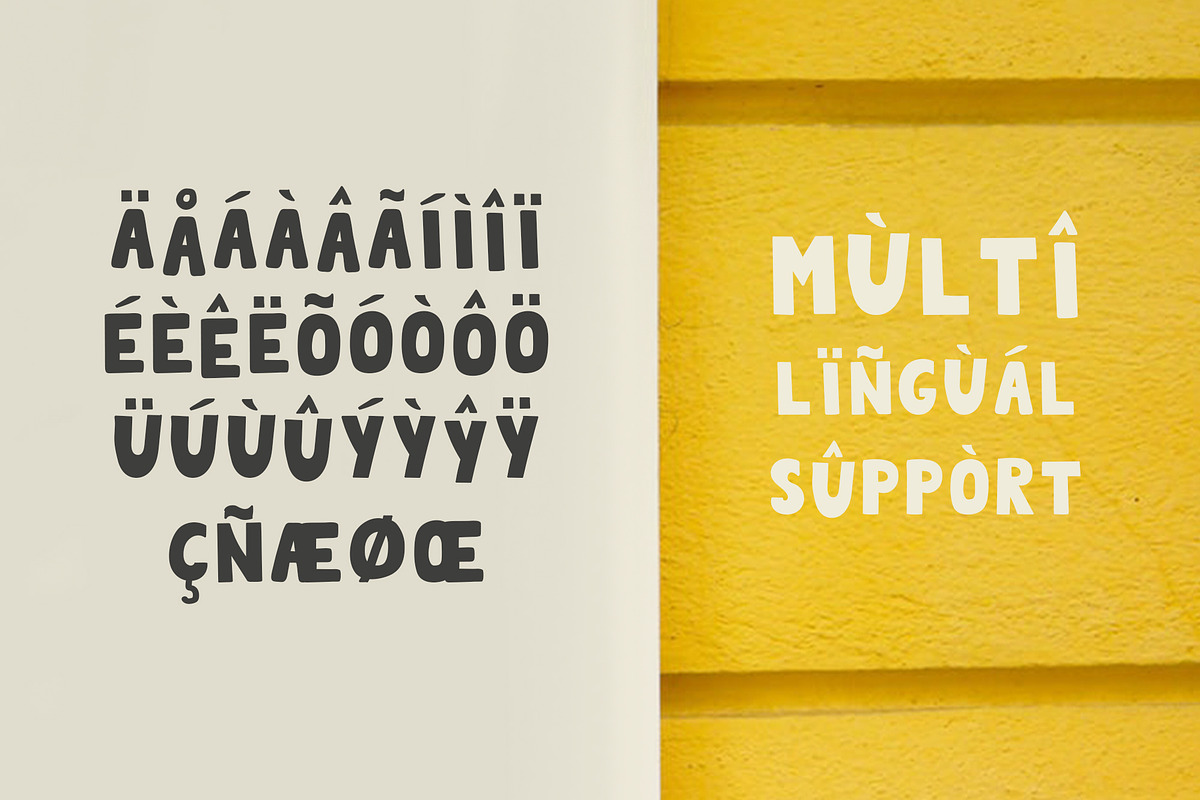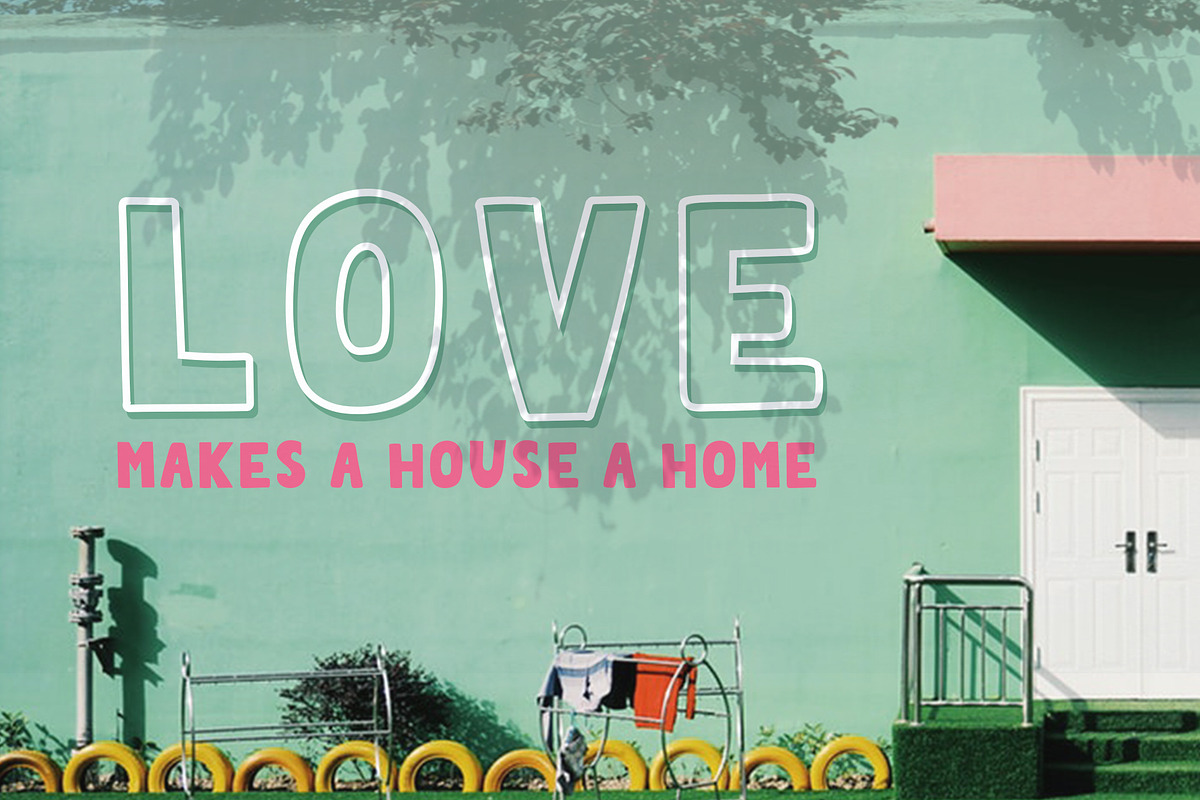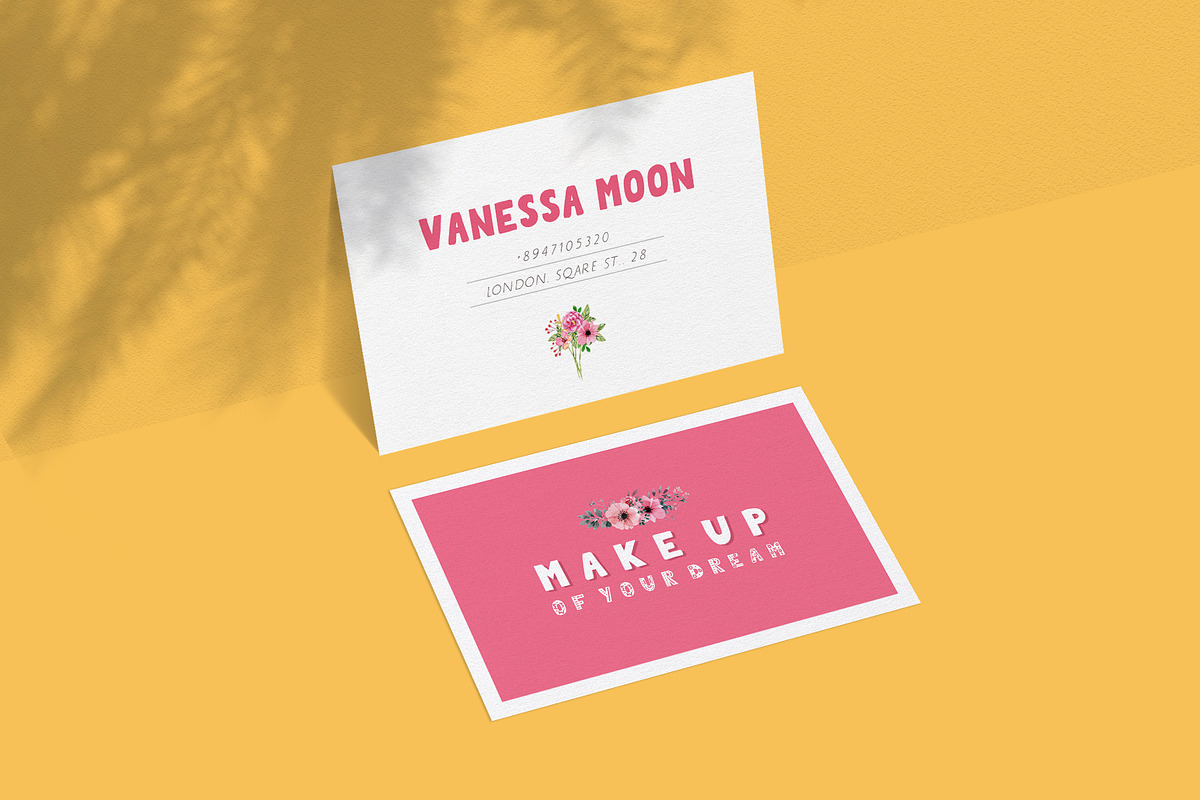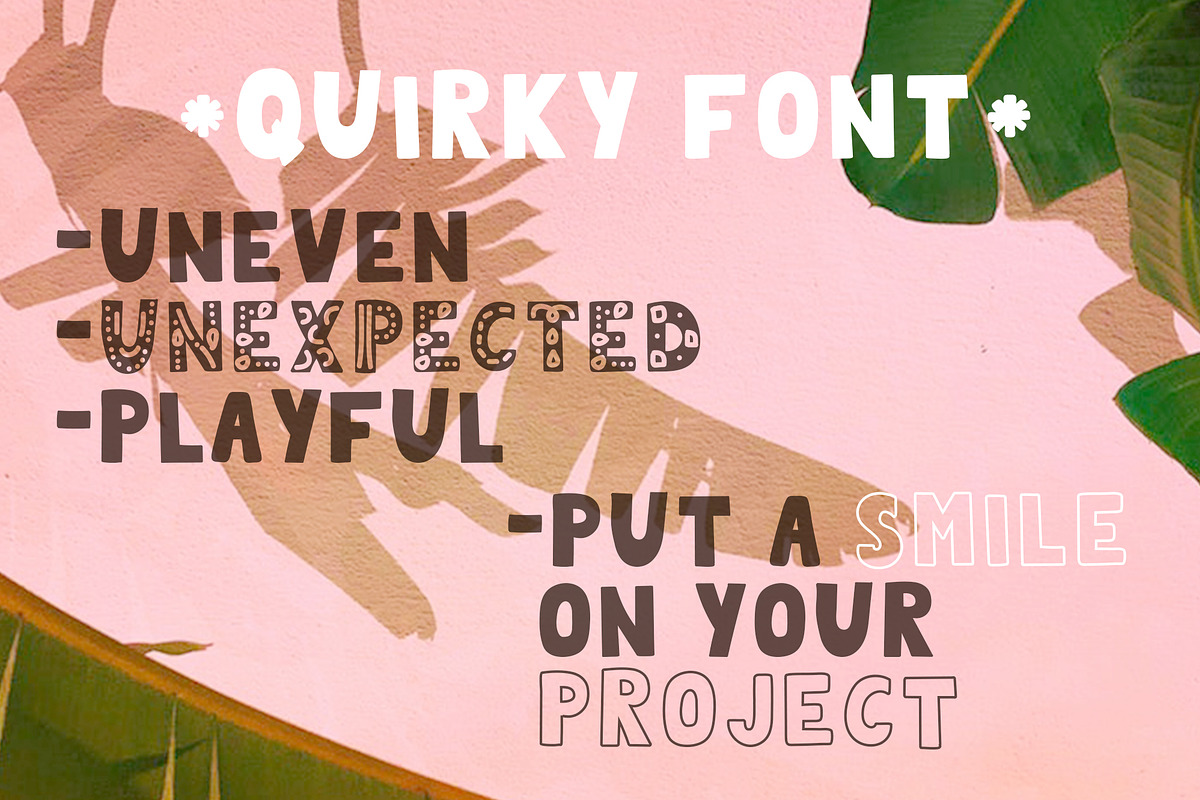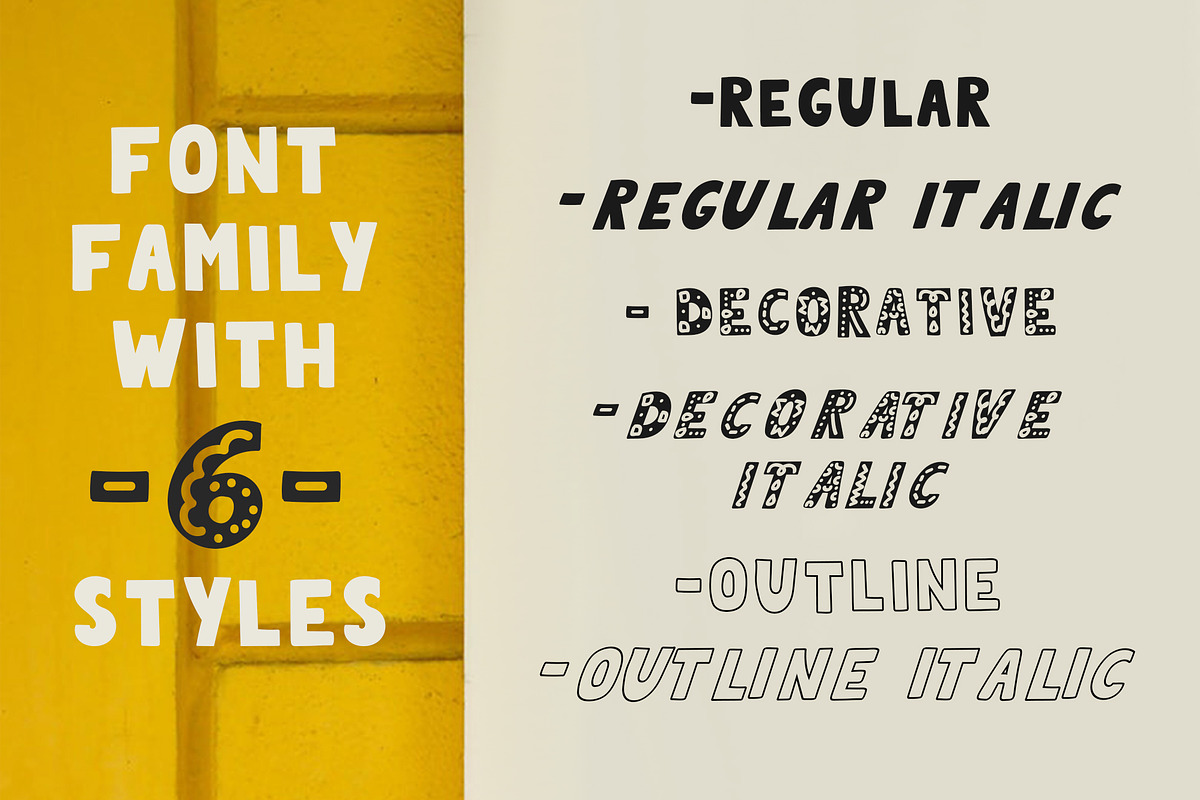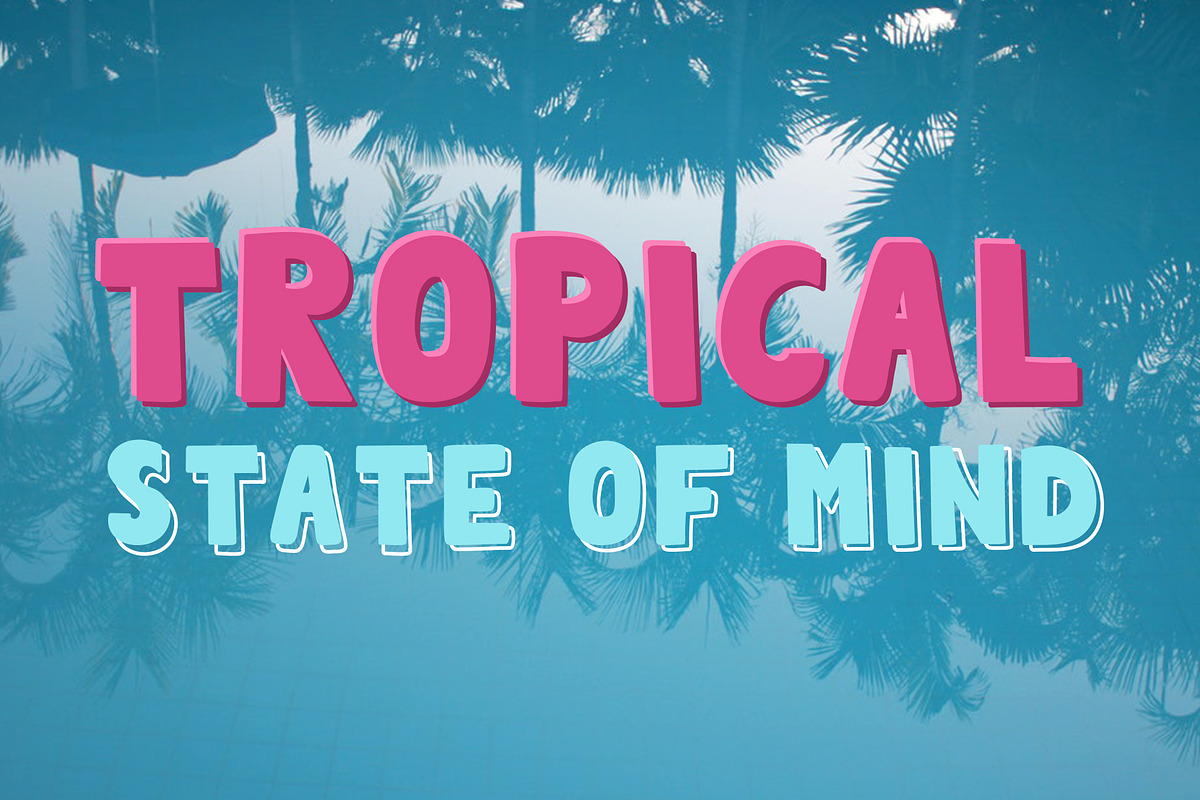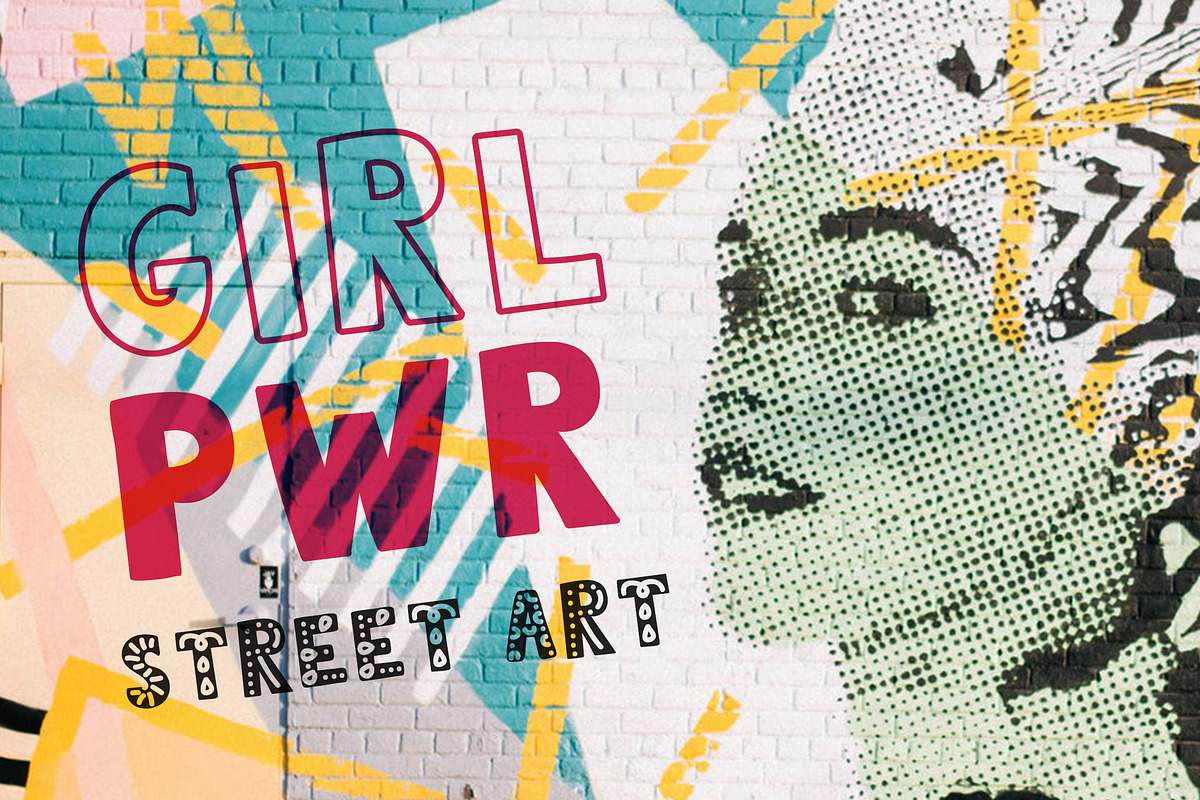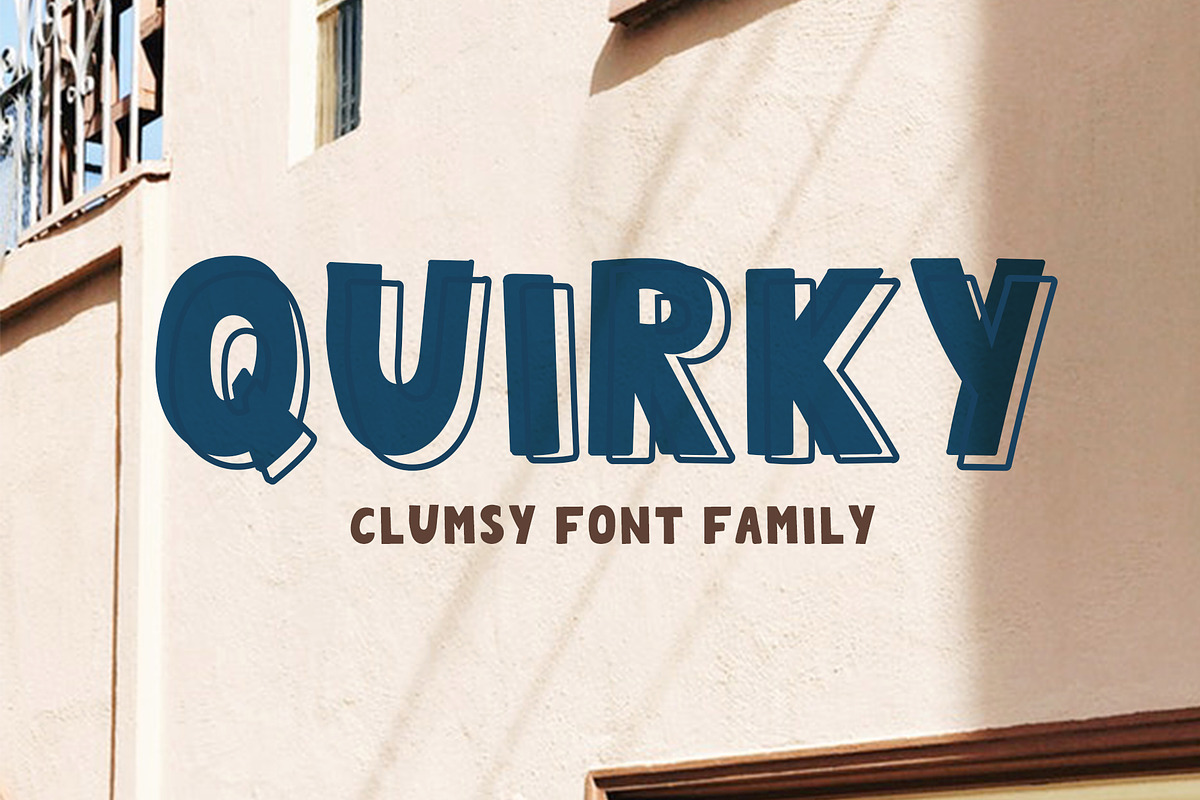
QUIRKY Playful Font Family
QUIRKY is uneven, unexpected, playful font family which puts a smile on your projects. It is perfect for headings, flyer, greeting cards, product packaging, book cover, printed quotes, logotype, apparel design, album covers, etc.
QUIRKY will help you to create special and touching typographical design for scandinavian or childish projects, for every day or the happiest day in life, summer vacations, baby shower, happy birthday cards. It is really universal and modern font. The owner of endless possibilities!
It can be used for multiple contexts. Works great in posters, logos, advertising, branding and so much more. Just create the best design and make your projects cosy, funny, trully hand-painted realistic and natural.
QUIRKY hosts 6 OTF fonts of different weights and styles:
QUIRKY Decorative Italic
QUIRKY Outline Italic
QUIRKY font has uppercase letters, numbers & basic punctuation, multiligual support (French, German, Italian, Norwegian, Portuguese, Spanish, Swedish, Swiss German).